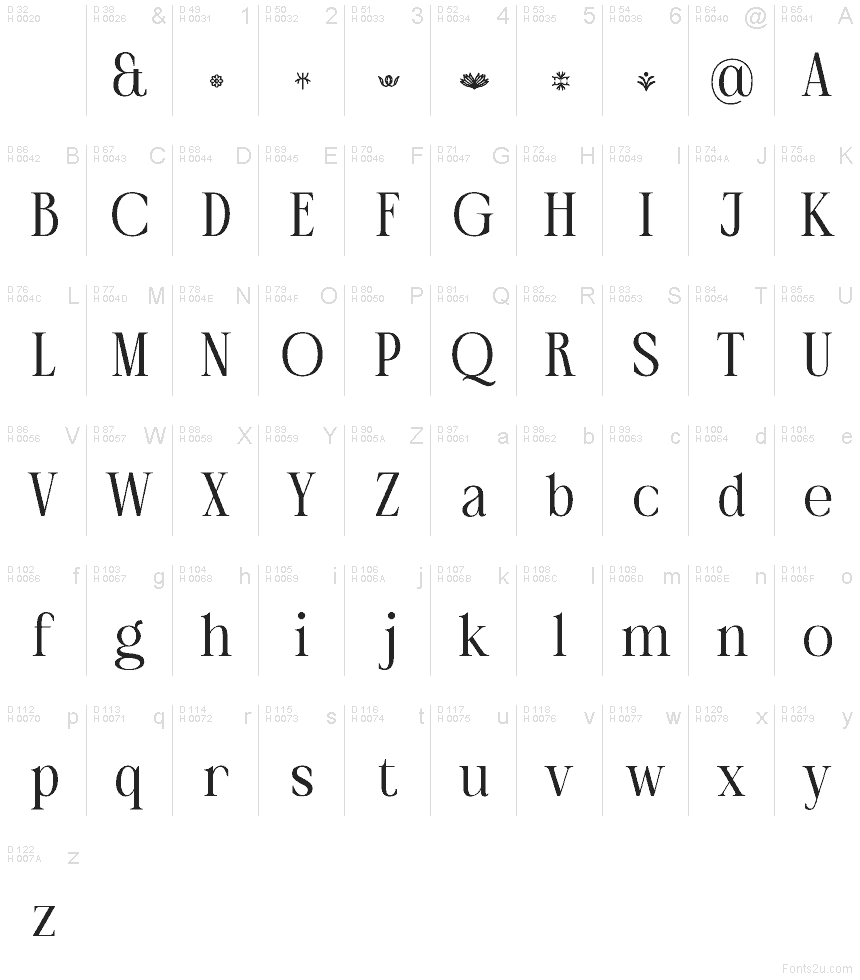
Amarieta Personal Use
Amarieta font, crafted by Hishand Studio, exudes elegance and sophistication in a condensed serif style. With its distinctive serif details and modern design approach, the font captures attention effortlessly with an appealing overall look.
This free serif font is suitable for body text or headings in corporate branding projects, packaging designs for foods or cosmetics, stationery products, book covers and pages, clothes designs and labels – even patterns. Its supportive approach makes it great also for logos and other visual identity materials such as business cards, brochures, letters etc.